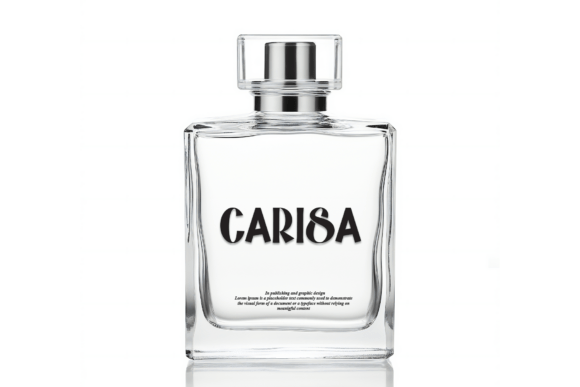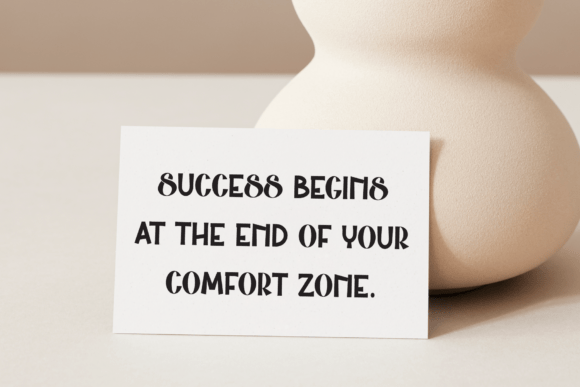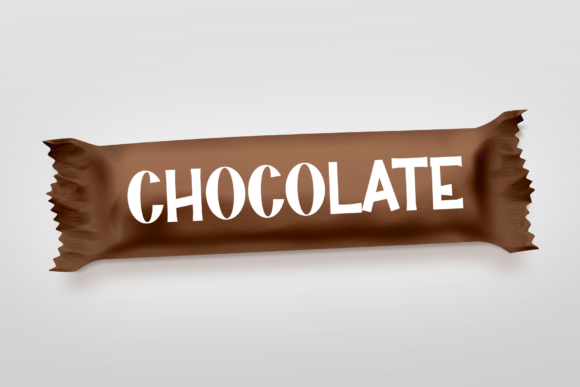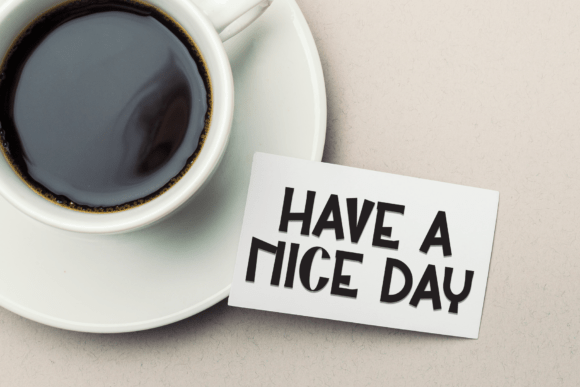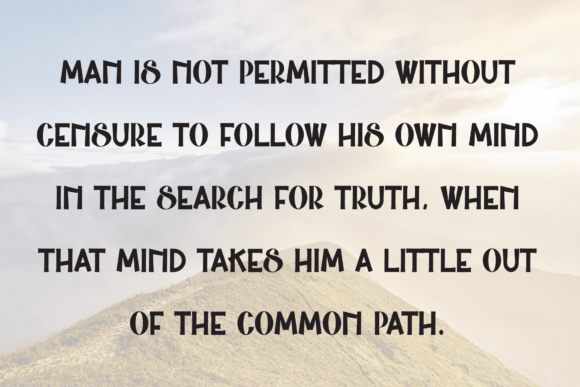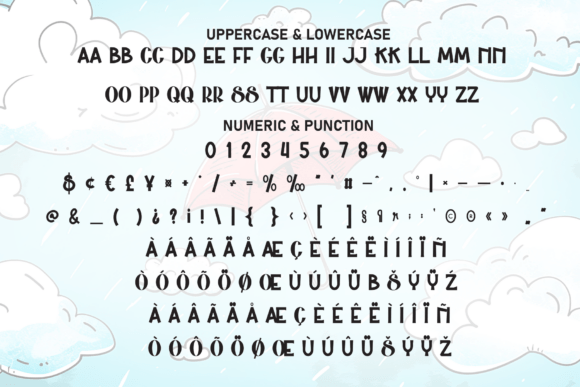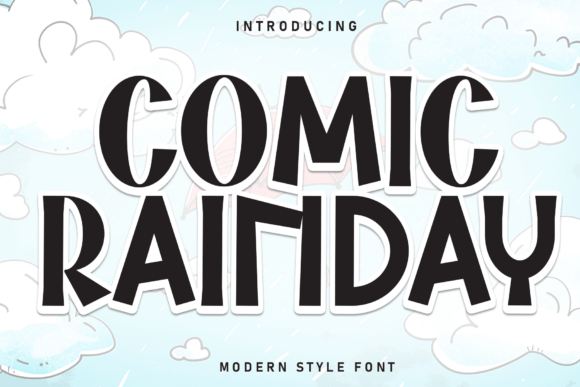
Introducing Comic Rainday Font: Elevate Your Designs with a Touch of Whimsy
Are you a designer, crafter, or DIY enthusiast looking for a unique and creative way to add a personal touch to your projects? Look no further than the Comic Rainday Font, a special creative product designed to give you an extraordinary experience. This latest style letter font is perfect for a wide range of applications, from wall displays and wedding invitations to social media post logos, advertisements, product packaging, and more.
Unleash Your Creativity with Comic Rainday Font
The Comic Rainday Font is more than just a font – it’s a tool that can help you unlock your full creative potential. With its playful and whimsical design, this font is sure to add a touch of personality to any project. Whether you’re a professional designer or a crafty DIY enthusiast, this font is perfect for anyone looking to add a little extra something special to their work.
The Comic Rainday Font is incredibly versatile, making it perfect for a wide range of design applications. Here are just a few ideas to get you started:
• Wall displays: Add a personal touch to your home or office decor with custom wall displays.
• Wedding invitations: Make your special day even more memorable with custom wedding invitations that showcase your personality.
• Social media post logos: Stand out on social media with custom logos that reflect your brand’s unique style.
• Advertisements: Grab attention and drive engagement with eye-catching ads that feature the Comic Rainday Font.
• Product packaging: Add a touch of personality to your product packaging and make it stand out on store shelves.
• Product designs: Create unique and eye-catching product designs that showcase your brand’s style.
• Labels: Add a personal touch to your labels and make them more recognizable.
• Photography: Use the Comic Rainday Font to add text and context to your photos.
• Watermarks: Protect your images with custom watermarks that feature your logo or branding.
• Invitations: Create custom invitations for parties, events, and more.
• Stationery: Add a personal touch to your stationery and make it more unique.
Why Choose Comic Rainday Font?
So why choose the Comic Rainday Font over other fonts on the market? Here are just a few reasons:
• Unique design: The Comic Rainday Font features a unique and playful design that’s sure to stand out.
If you’re looking for a unique and creative way to add a personal touch to your designs, look no further than the Comic Rainday Font. With its playful and whimsical design, this font is perfect for a wide range of applications, from wall displays and wedding invitations to social media post logos and product packaging. Order now and discover the endless design possibilities that await you!